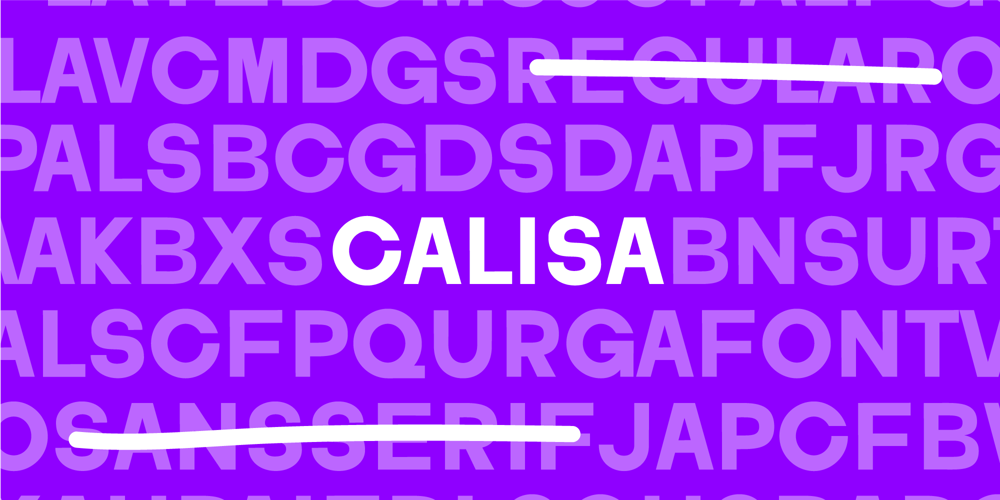
Calisa
Calisa font
Calisa Font Family was designed by Bianca Souza and published by BXS Type. Calisa contains 1 styles and family package options. Calisa is a sans serif font with a geometric construction and precise regularity. Designed to offer a clean and contemporary look, its balanced shapes and harmonious proportions ensure impeccable readability in a variety of sizes and applications.